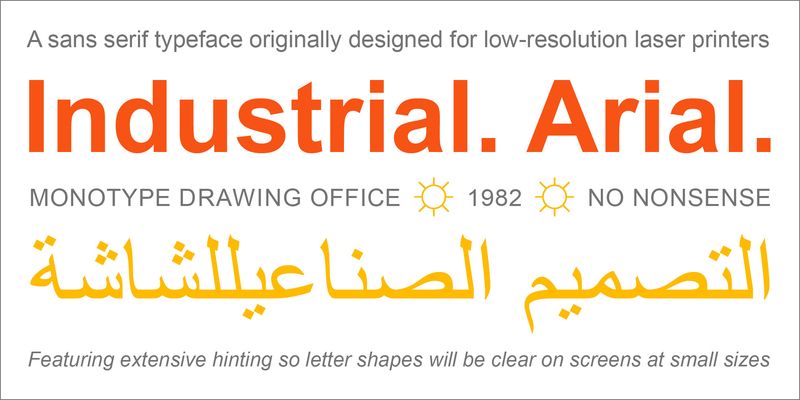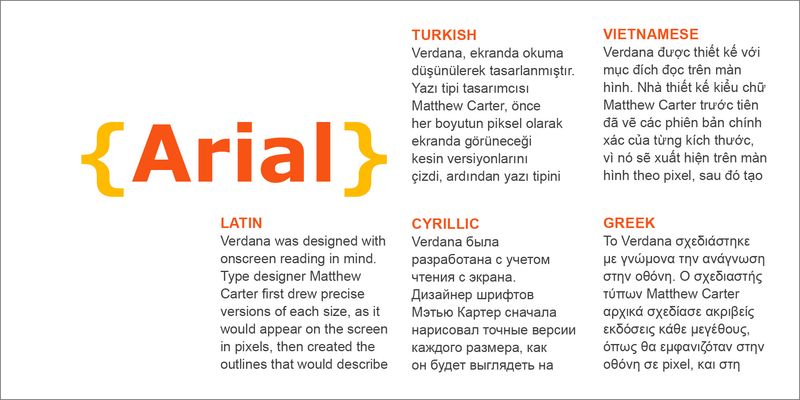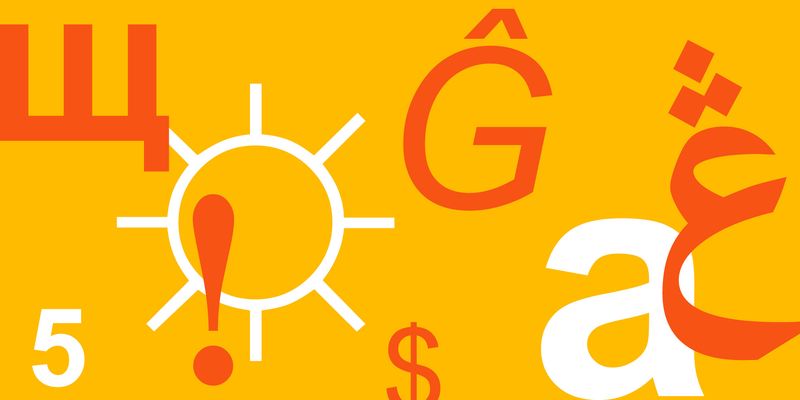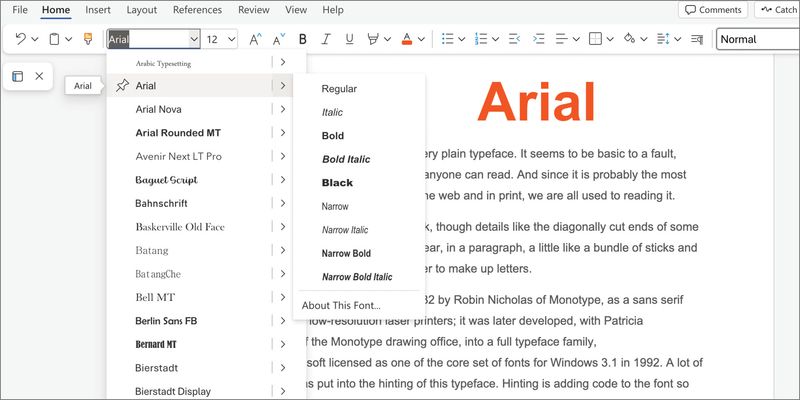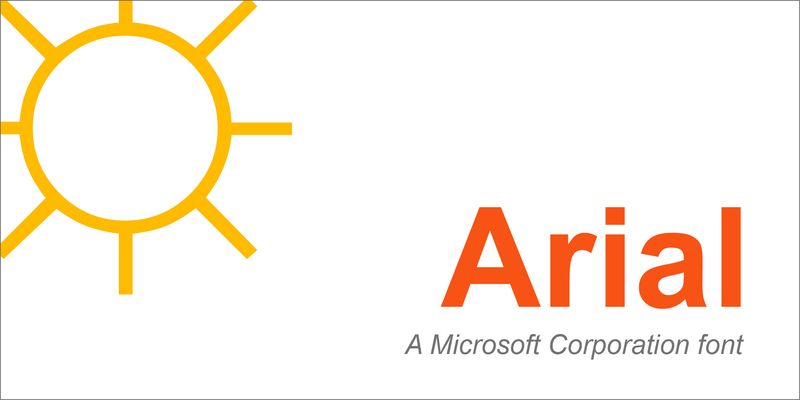
Arial gives the illusion of being a very plain typeface. It seems to be basic to a fault, simple lines in simple shapes that anyone can read. And since it is probably the most ubiquitous sans serif typeface on the web and in print, we are all used to reading it.
It has a no-nonsense industrial look, though details like the diagonally cut ends of some strokes soften its effect. It can appear, in a paragraph, a little like a bundle of sticks and round balls that have come together to make up letters.
Arial was originally designed in 1982 by Robin Nicholas of Monotype, as a sans serif typeface for low-resolution laser printers; it was later developed, with Patricia Saunders of the Monotype drawing office, into a full typeface family, which Microsoft licensed as one of the core set of fonts for Windows 3.1 in 1992. A lot of attention was put into the hinting of this typeface. Hinting is adding code to the font so that its letter shapes will be clear on screens even at small sizes.
The original Arial family includes Arial, Arial Narrow (useful for fitting copy into very narrow columns), Arial Black, and Arial Rounded MT Bold.